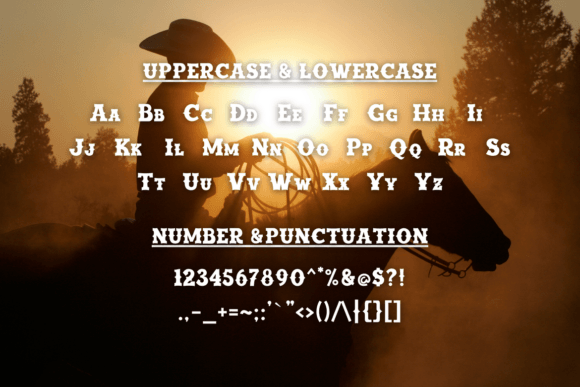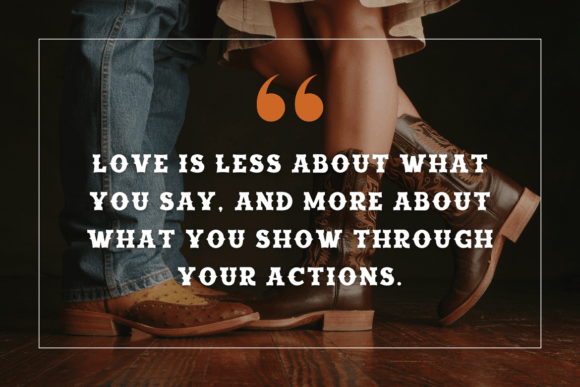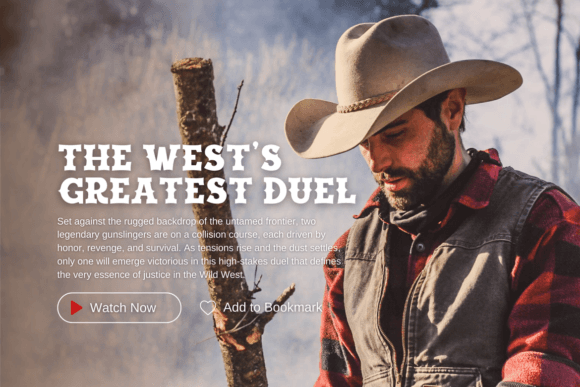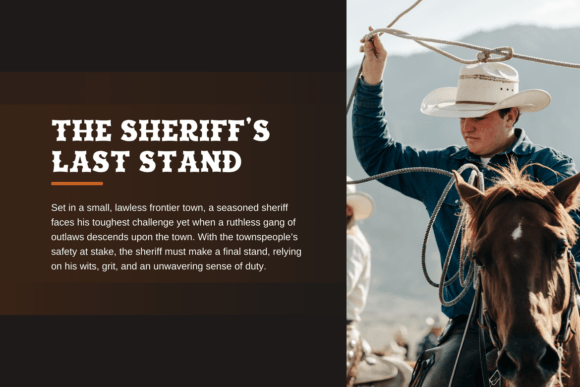
Introduction to Jawara Font
Introducing “Jawara,” a retro font that captures the rugged spirit of the Wild West.
With its bold, vintage letterforms and rustic charm, this font is perfect for adding a touch of frontier flair to your projects Ideal for posters, logos, branding, and themed events.
Key Features of Jawara Font